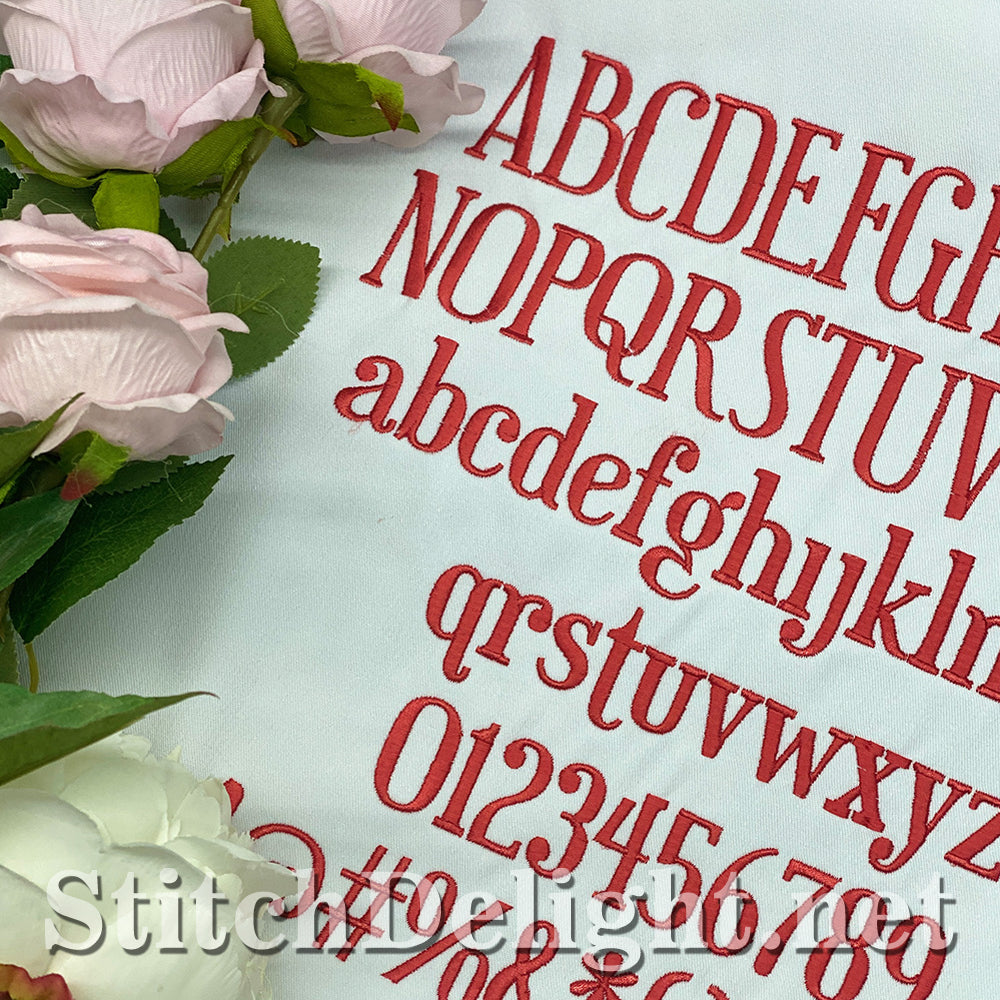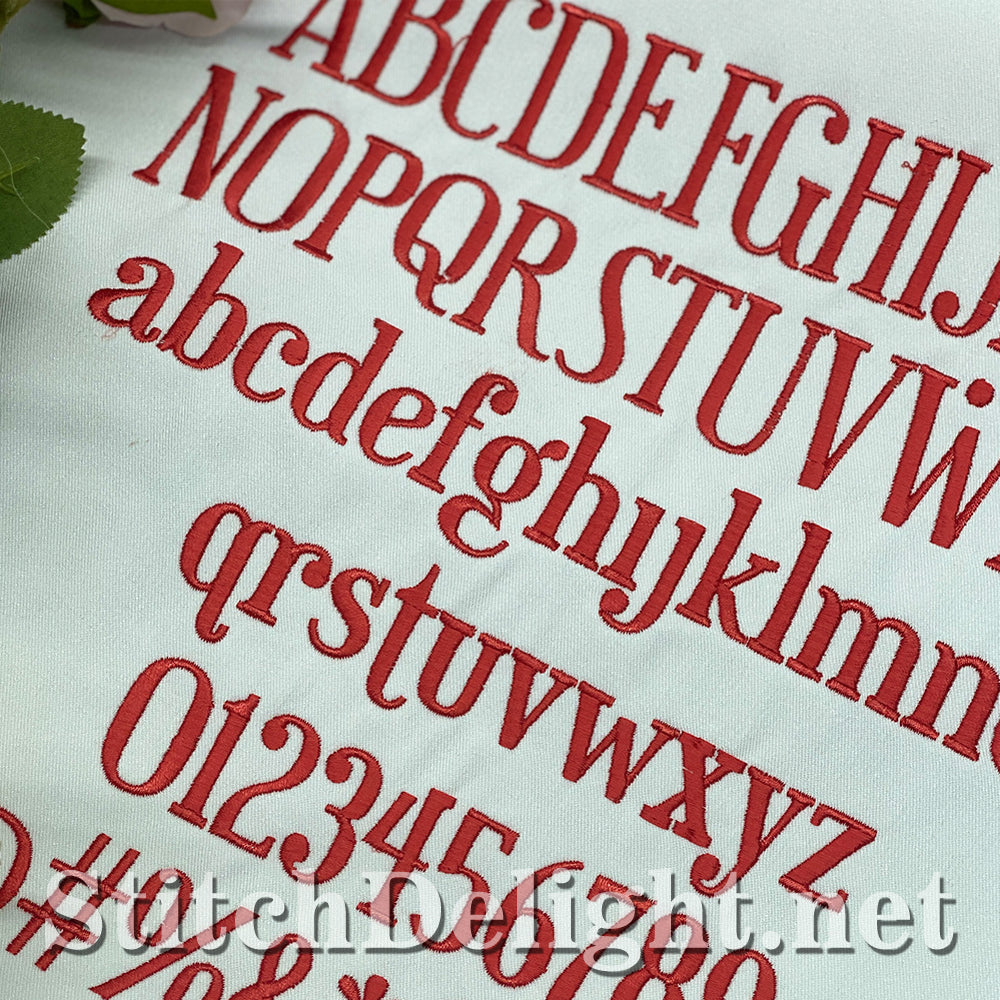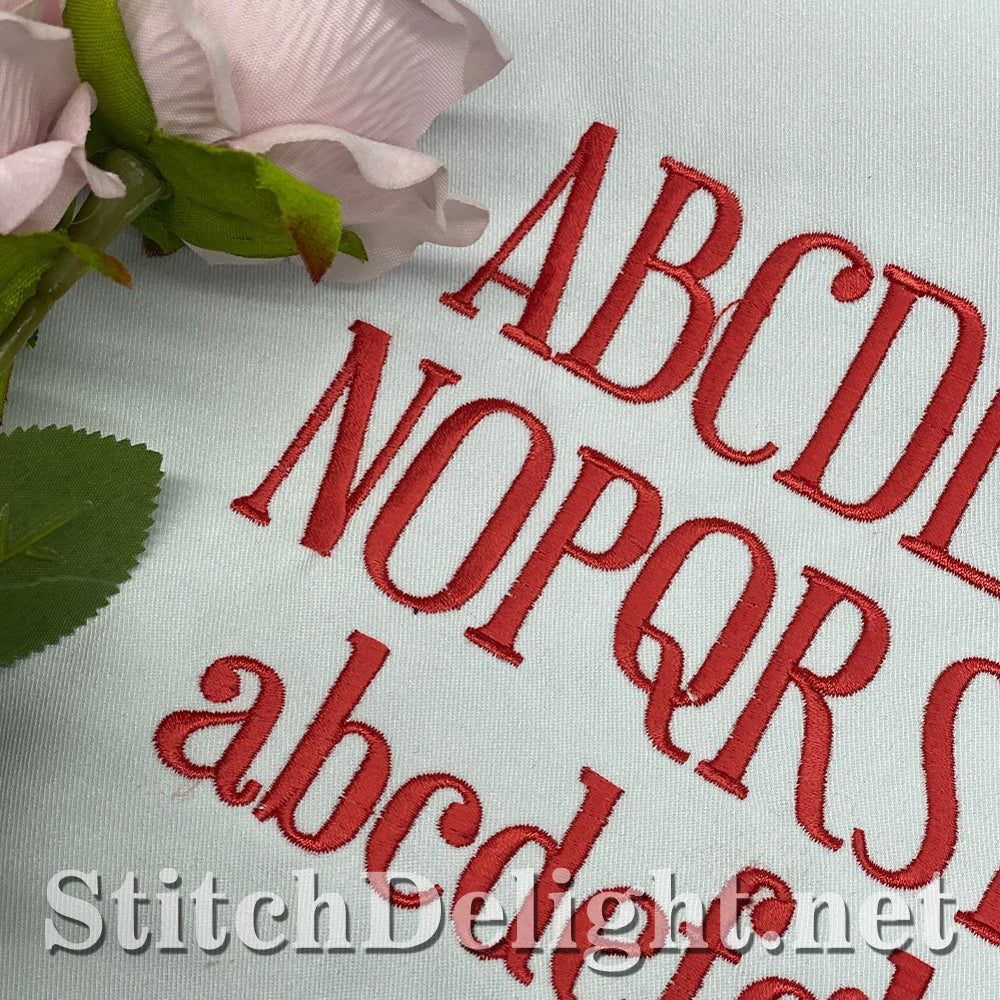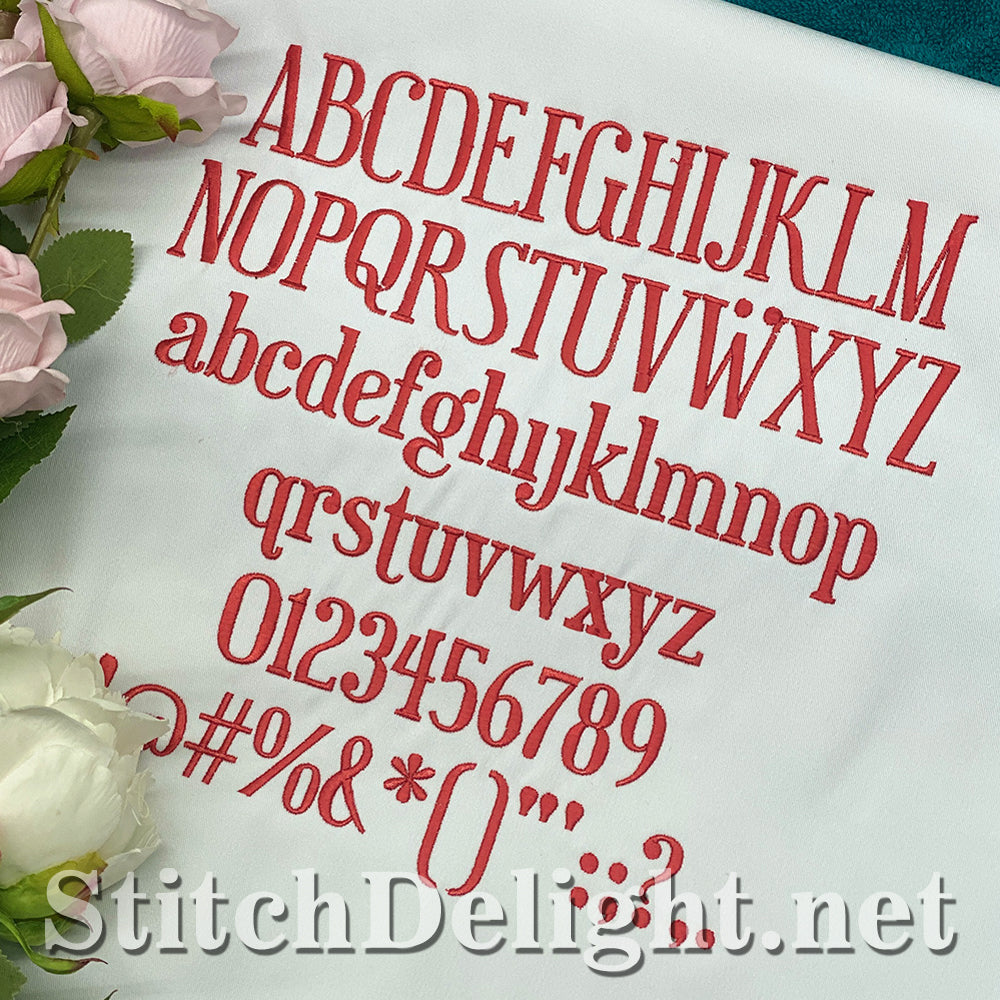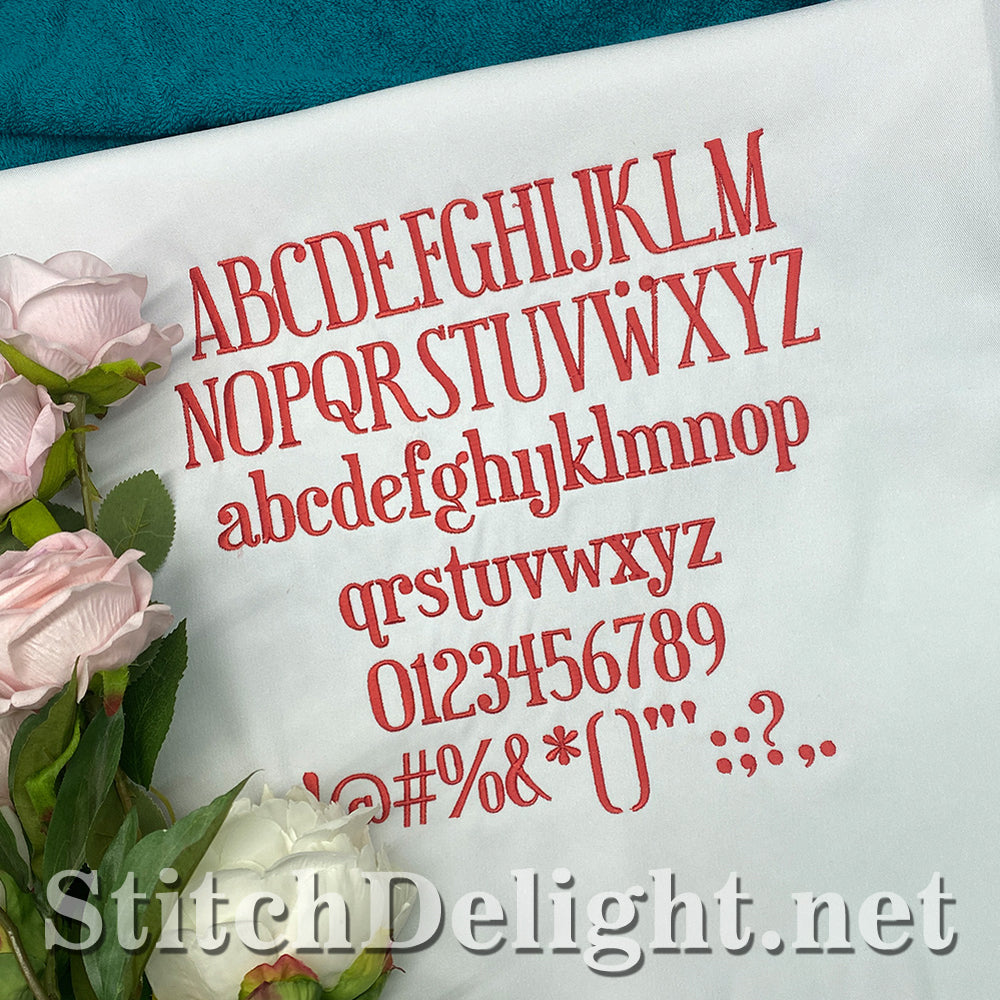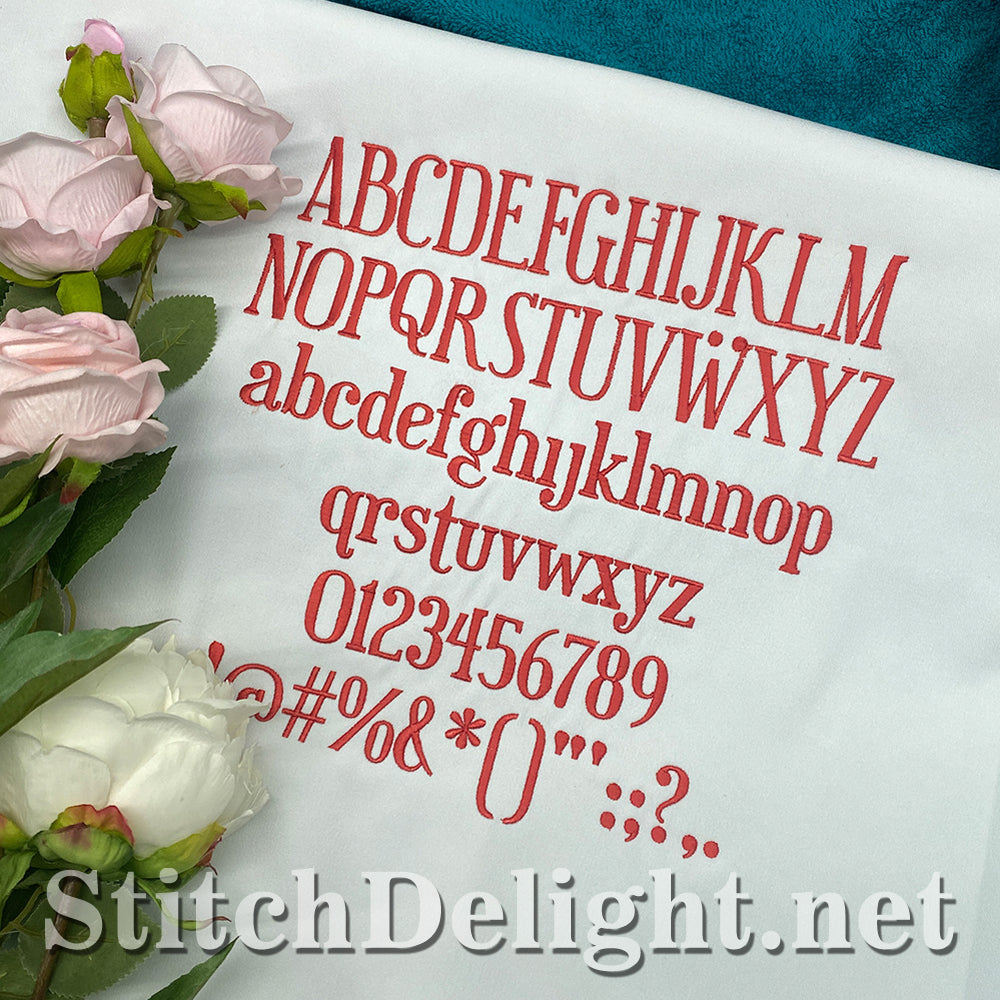
SDS5503 Little Stance Font
Clear and super easy to read! The perfect font for information that requires to be clear and concise.
With an average height of 1.1" for numbers and lowercase letters and 1.4" for uppercase letters, this font is perfect for all your small text needs. This is also the same font we used in SDS5502 Enchanting Birth Announcement.